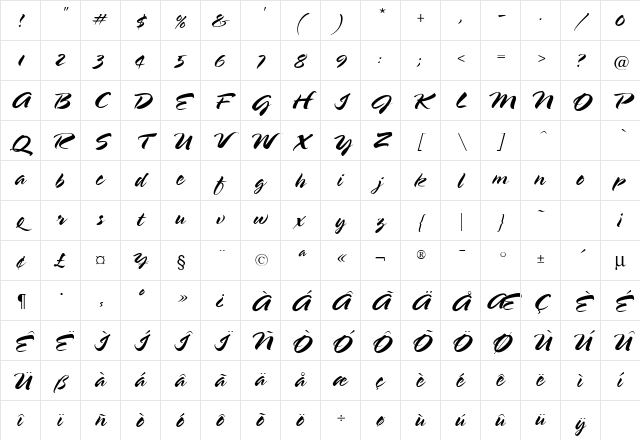
Bustamalaka Regular Free Font
Bustamalaka Regular
Bustamalaka Family
Design Context for Bustamalaka
Bustamalaka is a composed and adaptable typeface that performs quietly and consistently across a wide range of design contexts.